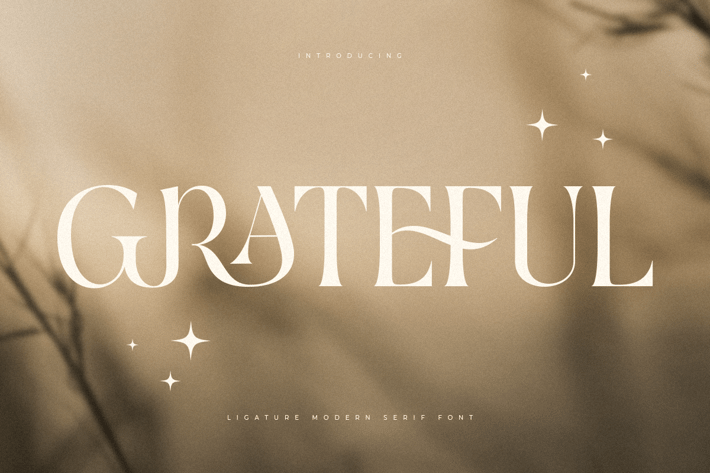
Grateful - Ligature Luxury Modern Serif Font
Grateful is Modern Luxury Ligature Serif Font is a well-balanced contemporary font with a fancy and unique style, font that you can combine to get any variations and unique shapes easily just in seconds with choose alternates and ligatures of them. It is a serif display font with moderate contrast that perfect for branding projects, logo, wedding designs, social media posts, advertisements, product packaging, product designs, label, photography, watermark, invitation, stationery, and any projects, it makes with a high level of legibility.